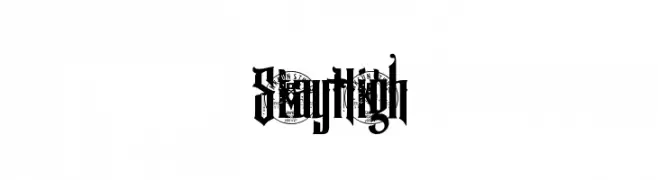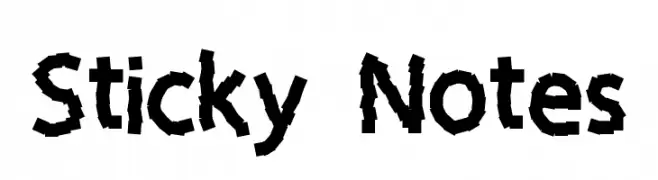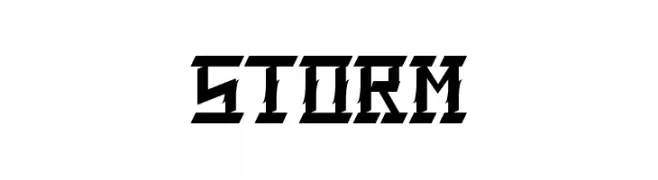
A whimsical, handwritten font with playful loops and elegant curves.
A bold, gothic blackletter font with intricate, angular strokes.
A casual, handwritten-style font with smooth, fluid strokes and a personal touch.
A bold, decorative font with a vintage, rugged style.
A pixelated, geometric font with a bold, modern style.
A playful, jagged font with a hand-cut paper aesthetic.
A decorative font with a stitched, handcrafted appearance.
A serif font with a stitched, decorative outline for a crafty, vintage look.
A bold, angular font with a geometric and modern graffiti-inspired style.
An ornate and decorative script font with flowing lines and elaborate swashes.